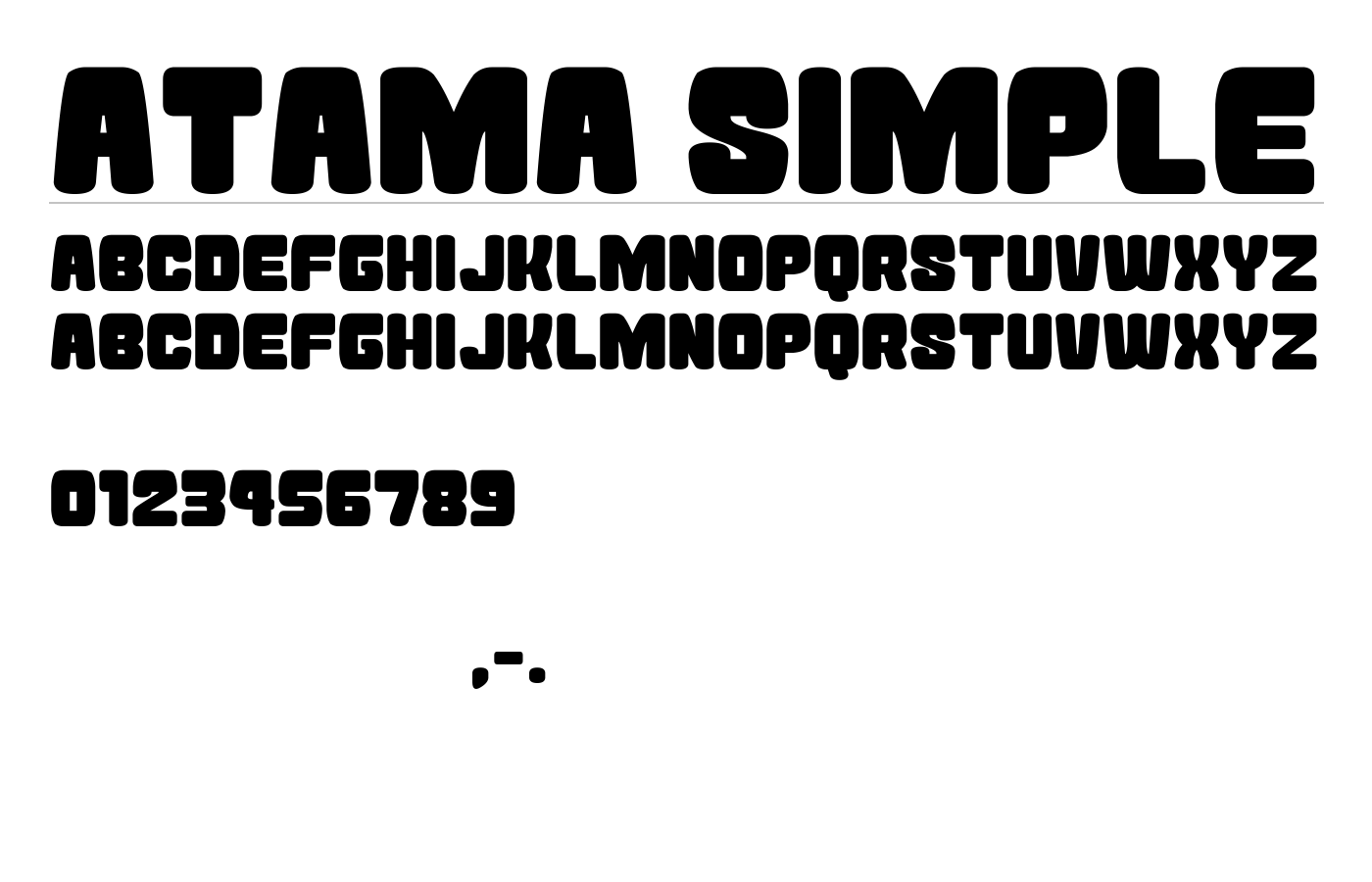
Atama Simple is a bold, rounded sans serif font with a playful and approachable feel. Its thick, even strokes and slightly condensed letterforms make it stand out strongly, ideal for eye-catching headlines, logos, and branding that need a friendly yet confident vibe. This font works well in creative projects and packaging where a modern, fun impression is desired.
Atama Simple Font
About Atama Simple Font